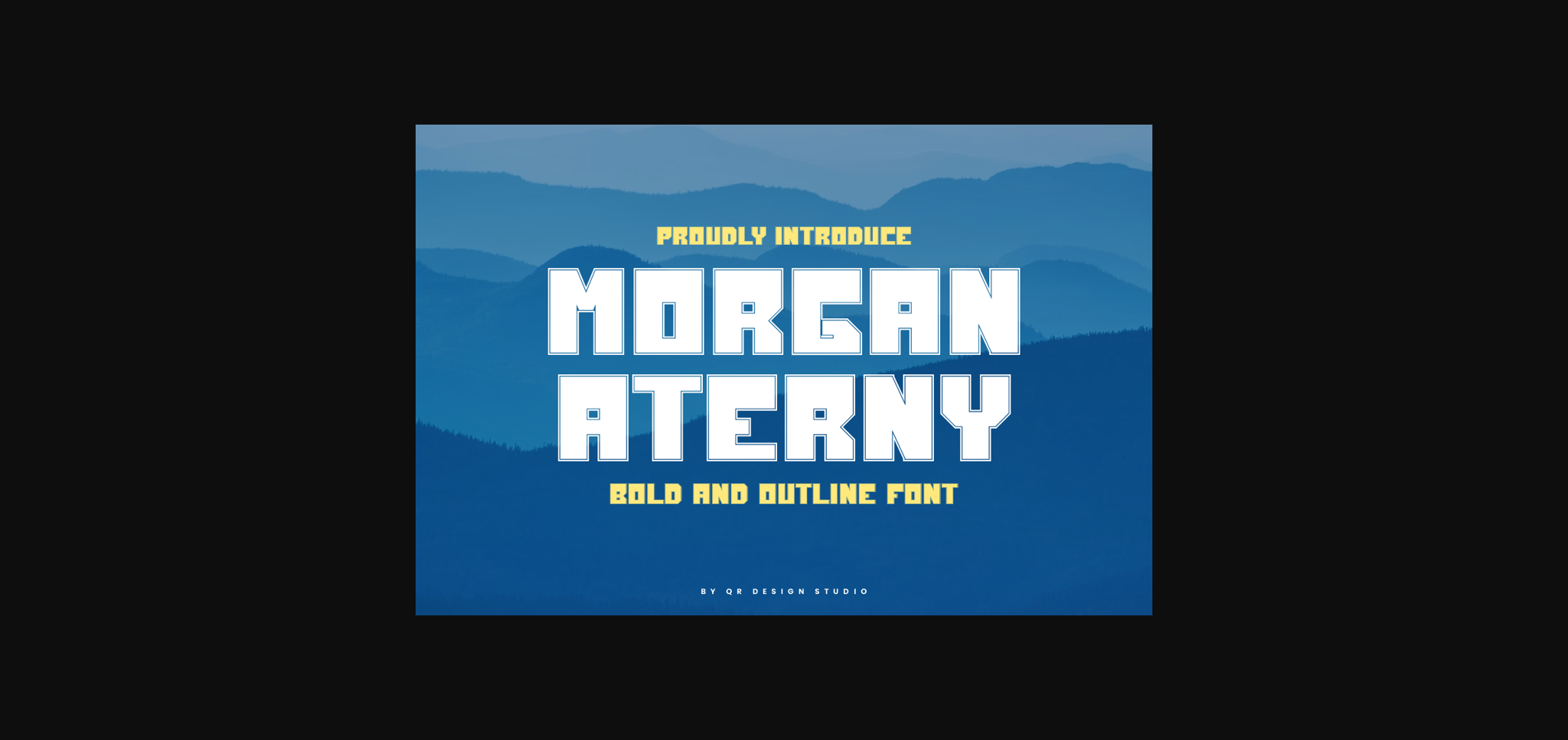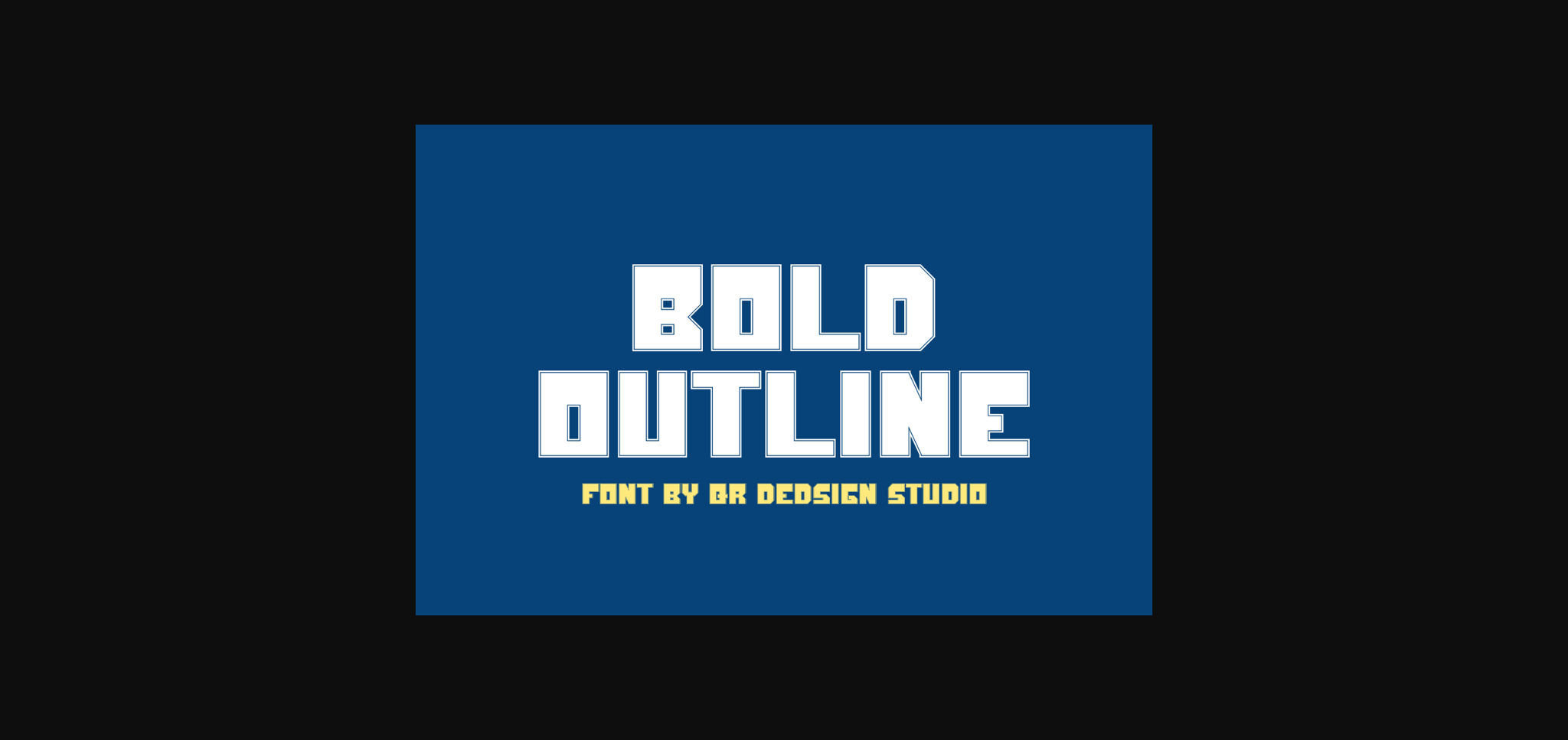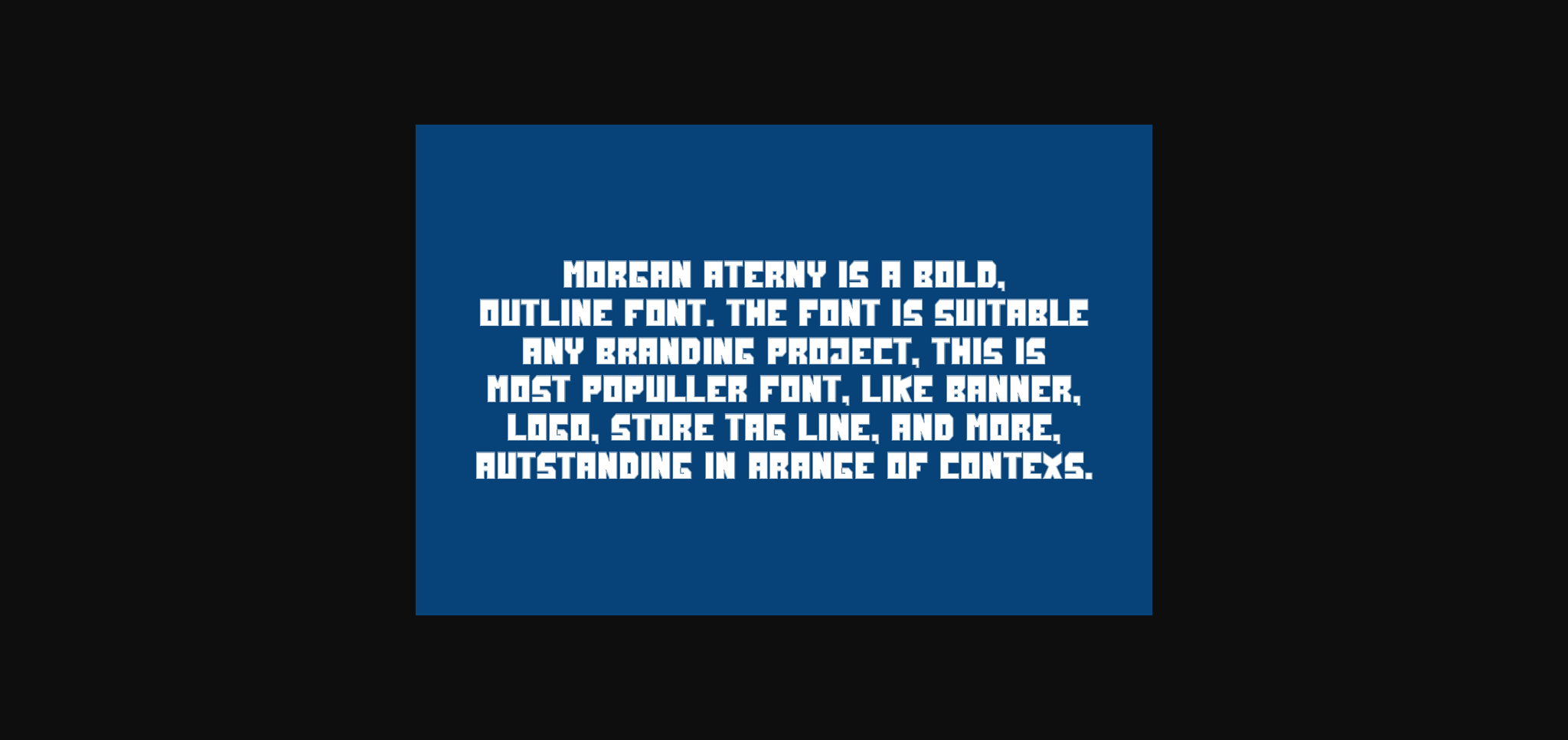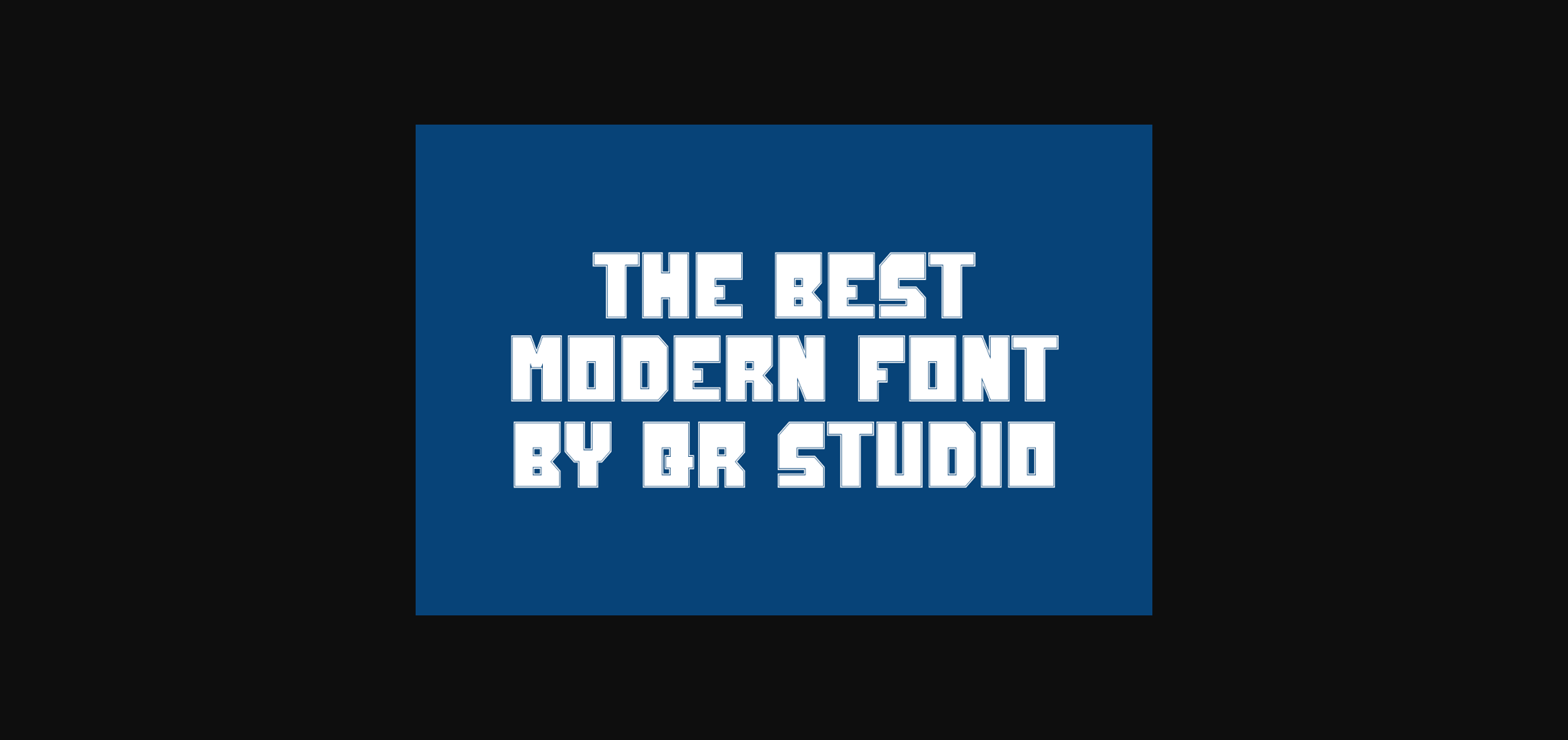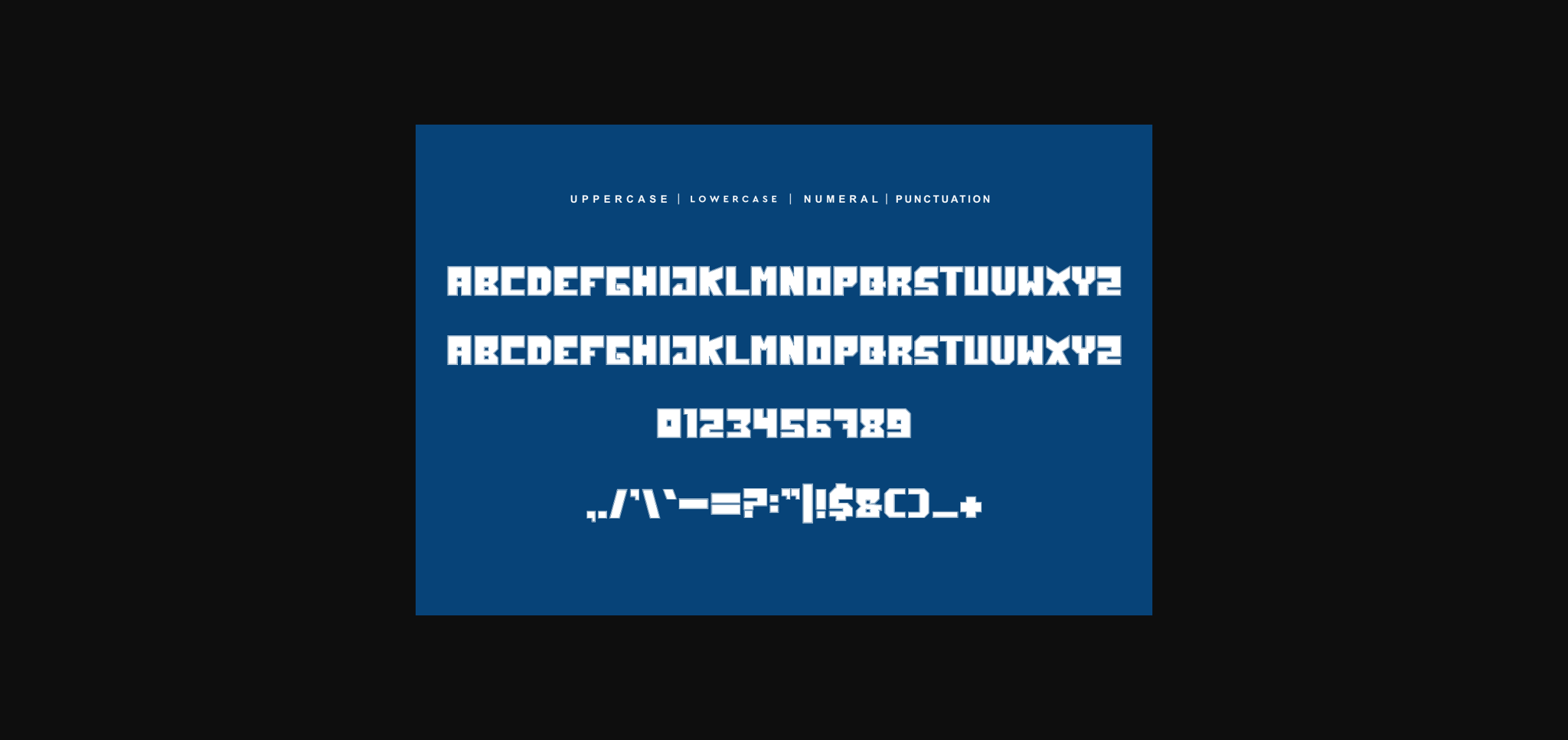
About Morgan Aterny Font
Morgan Aterny Font is a bold and authentic display font.
The font is suitable for any branding project like logo, sport, and many more.